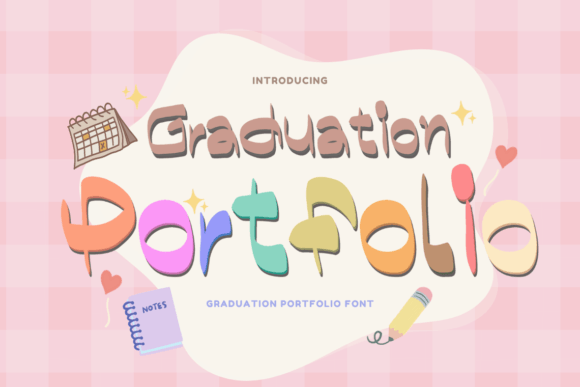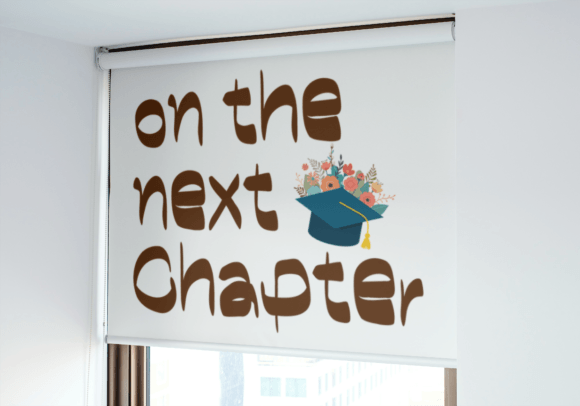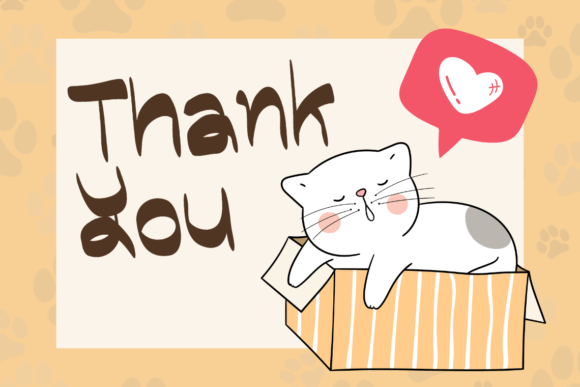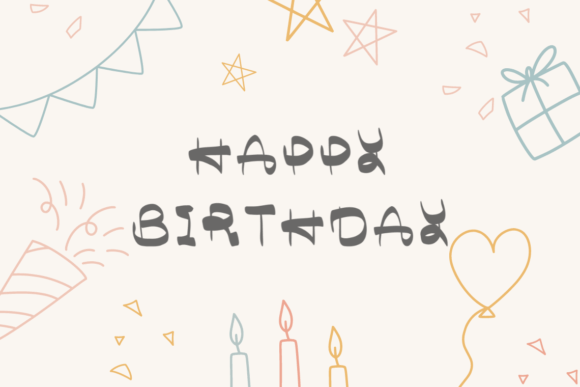
Graduation Portfolio Font
About the Graduation Portfolio Font
Unleash your creativity with Graduation Portfolio Font, a versatile font perfect for a wide range of applications. Presenting Graduation Portfolio Font! With its handwritten style and school-themed alphabet graphics, this font is perfect for celebrating graduations and academic achievements. Whether you’re creating paper notes, worksheets, or other educational materials, Graduation Portfolio Font adds a playful touch to your designs. Celebrate the journey of learning and accomplishment with this charming font!
Graduation Portfolio Font’s playful handwritten style is ideally suited for projects requiring a celebratory, approachable feel. It works best in headlines, short text blocks on invitations or certificates, and logos for educational brands or celebratory events. Avoid using it for large amounts of body text or UI elements where readability is paramount; its informal nature compromises legibility in extended use.
Consider pairing it with a clean sans-serif like Open Sans for a balanced contrast, or a more formal serif like Garamond for a sophisticated juxtaposition. For a more whimsical approach, a playful script font could enhance its celebratory energy.
The font’s overall personality is friendly and celebratory, conveying a sense of youthful accomplishment. It’s best suited for brands and projects that value approachability and a touch of informal charm.
Graduation Portfolio Font Example